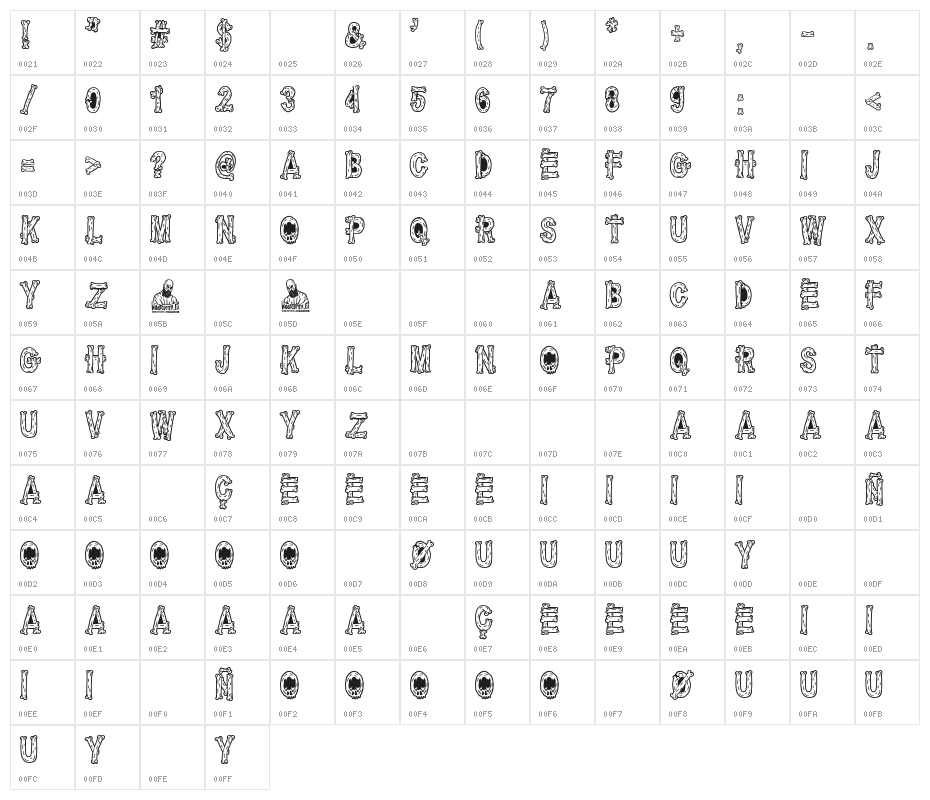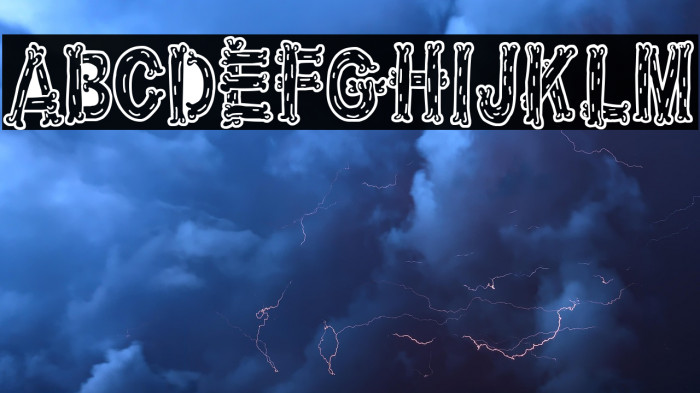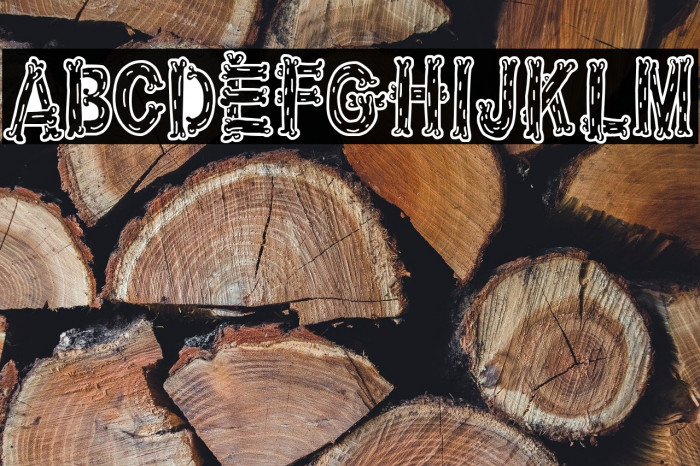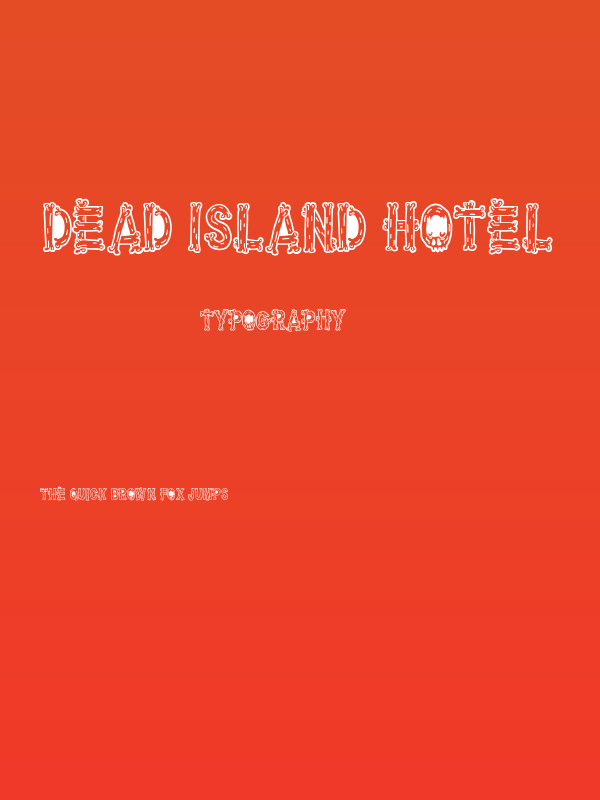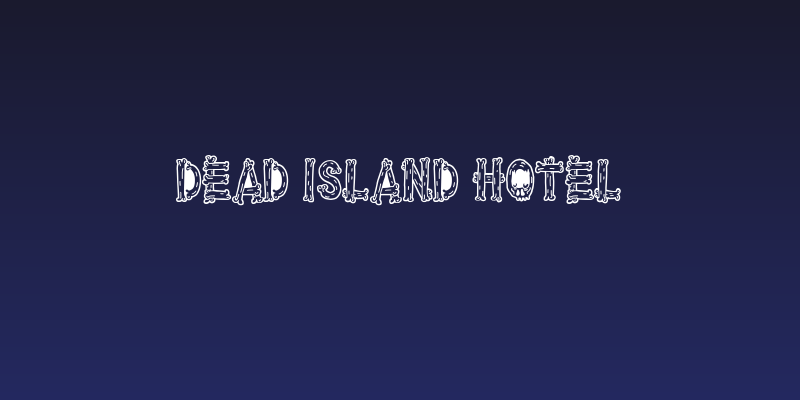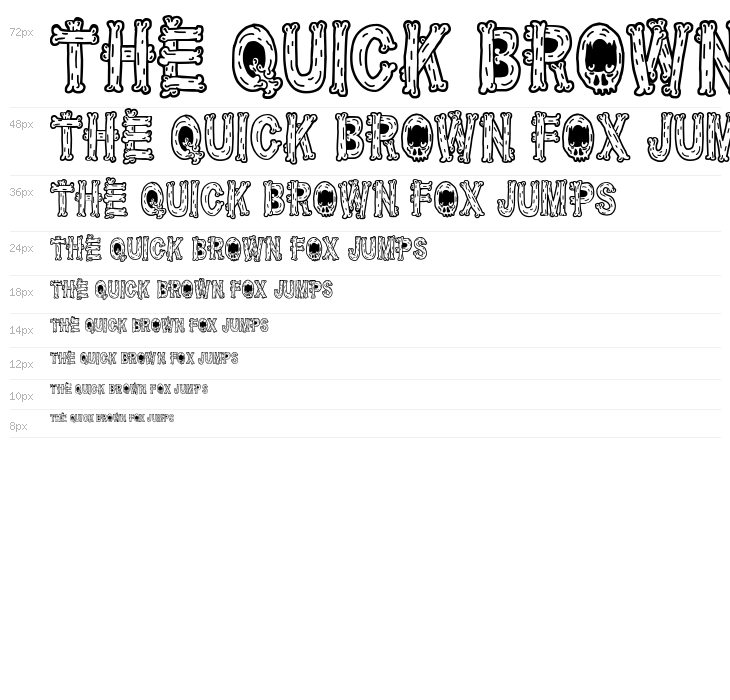
Dead Island Hotel Font
Dead Island Hotel Description
This font features a playful and spooky design, with each character resembling bones or skeletal structures. The letters are bold and have a hand-drawn appearance, giving them a unique and decorative style. The font includes uppercase and lowercase letters, numbers, and a variety of special characters. The overall look is reminiscent of Halloween or horror themes, making it ideal for projects that require a touch of the macabre or whimsical eeriness.
| Proposed Projects | Ideal for Halloween invitations, horror-themed posters, party decorations, and any project needing a spooky, playful touch. |